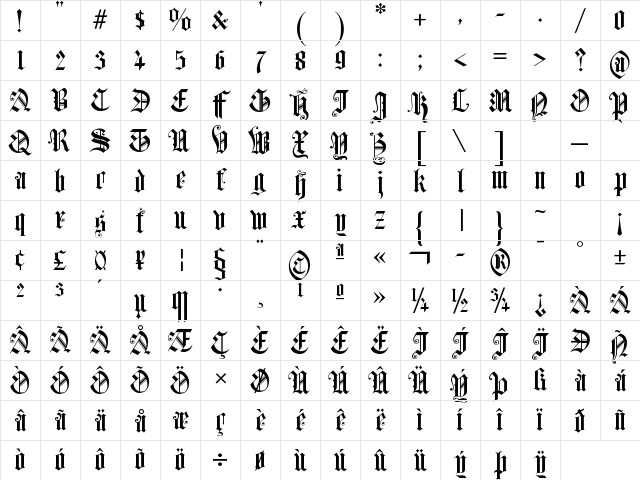
Church Text b Regular
Design Context for Church Text b
Church Text b is a composed and adaptable typeface that performs quietly and consistently across a wide range of design contexts.